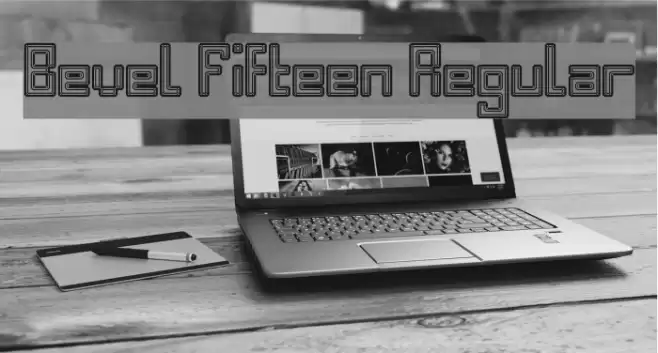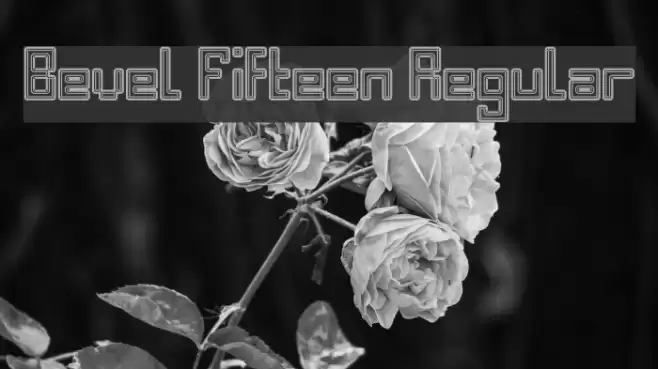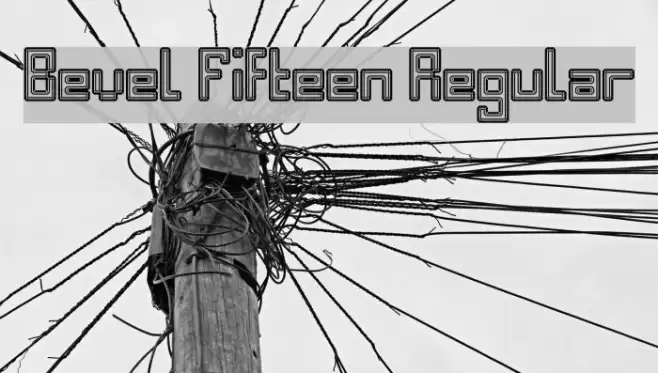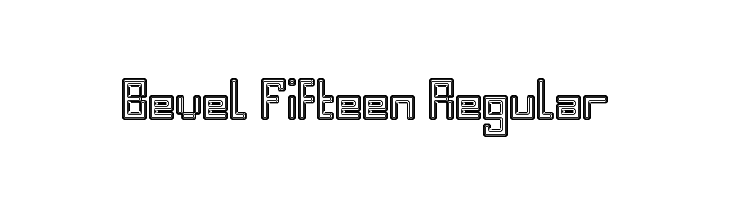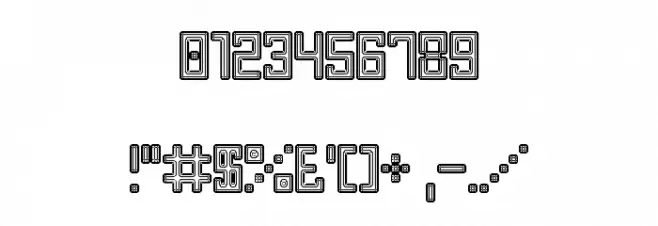
Bevel Fifteen Regular Font
Bevel Fifteen Regular Description
This font features a distinct, geometric design with a three-dimensional effect, created by its beveled edges. The characters are outlined with a double line, giving them a layered appearance that adds depth and visual interest. The uppercase and lowercase letters maintain a consistent style, with angular, block-like shapes that are both modern and futuristic. The numerals and special characters follow the same design principles, ensuring a cohesive look across all glyphs. This font's unique style makes it stand out, ideal for projects that require a bold and eye-catching typeface.
A geometric, beveled font with a three-dimensional, outlined design from Uncategorized fonts.
- Proposed Projects: Ideal for posters, logos, video game graphics, and any design needing a futuristic or tech-inspired look.